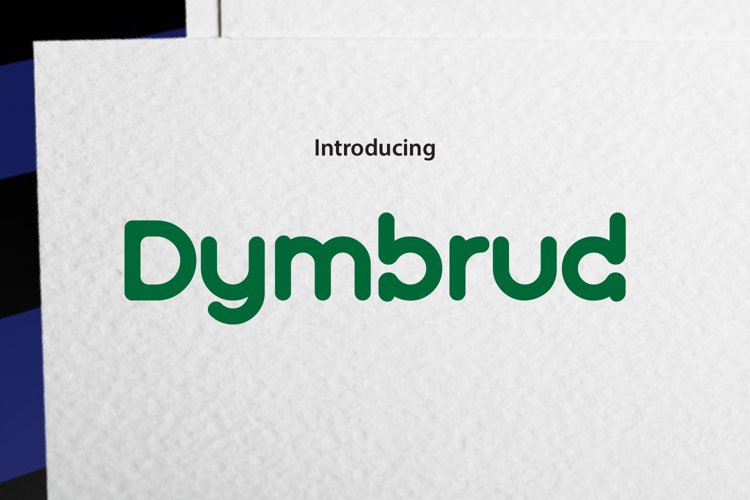
Dymbrud is very versatile and is suitable for use on flyers, posters,
shirts, websites, logos and much more. The typeface works well at small
sizes but works best at larger sizes such as headings. Dymbrud as
created with geometry and rounded corners to create a friendly typeface
designed to look modern and friendly.